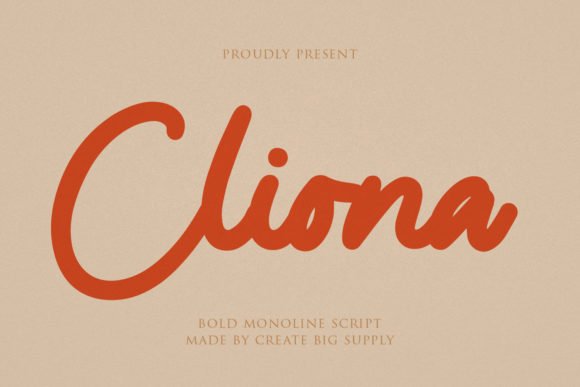
Meet Your New Favorite Script Font: Cliona
Have you ever stared at a blank page, trying to bring a design idea to life, only to be met with a blank stare from your font options? We’ve all been there. The struggle is real, but what if I told you there’s a script font that’s about to change the game for you?
Enter Cliona Script Font, a bold and beautiful font designed to elevate your designs and make a statement. Perfect for branding designs, logos, product packaging, marketing materials, advertising, business cards, and more, Cliona Script Font is the ultimate addition to any designer’s toolkit.
With its versatility and stylish flair, Cliona Script Font is a valuable asset for designers looking to add a touch of sophistication and creativity to their work. Whether you’re a seasoned pro or just starting out, this font is sure to inspire your next design project.
Cliona Script Font Key Features
- Font Style: Script Font, perfect for creating elegant and sophisticated designs.
- Unique Characteristics: Features a flowing, cursive design with a touch of elegance, making it perfect for wedding invitations, branding, and other creative projects.
- Font Weight: Available in Light, Regular, and Bold weights, allowing for versatility in design and emphasis.
Review: Cliona Script Font
Overall, I found Cliona Script Font to be a visually appealing addition to any design project. It works well in ✨ creative and whimsical contexts, particularly for branding, wedding invitations, and social media graphics. The flowing script style is perfect for adding a touch of elegance and sophistication.
- Works well for creative and whimsical projects
- Perfect for branding, wedding invitations, and social media graphics
- Flows well in both uppercase and lowercase letters
- Has a wide range of ligatures, giving it a natural look
However, there are some limitations to consider. The font may not be suitable for ✨ complex or technical content, as it can be difficult to read in smaller font sizes. Additionally, some users may find the font to be a bit too ornate or over-the-top, particularly in ✨ corporate or formal contexts.
- May not be suitable for complex or technical content
- Can be difficult to read in smaller font sizes
- May be too ornate or over-the-top for formal contexts
Overall, I would recommend Cliona Script Font to designers who are looking for a unique and eye-catching script font for their creative projects. However, it’s essential to consider the context and audience before using this font.
Cliona Script Font is ideal for creating elegant and sophisticated designs in Canva, such as invitations, quotes, and social media graphics.
Cliona Script Font is perfect for creating intricate and artistic designs in Photoshop or Illustrator, such as typography-based art and hand-lettering.
Cliona Script Font is great for adding a touch of elegance to presentations and documents in PowerPoint or Word, such as title slides and headings.
Cliona Script Font is ideal for:
- Elegant invitations and event materials
- Sophisticated typography-based art
- Hand-lettering and calligraphy
- Adding a touch of elegance to presentations and documents
Alternatives to Cliona Script Font for Designers
Carolyna Pro is a beautiful, elegant script font that is perfect for creating a luxurious and sophisticated look. It is ideal for use in high-end branding, invitations, and wedding stationery. Compared to Cliona Script Font, Carolyna Pro has a more refined and polished feel, making it suitable for a wider range of design projects.
Pacifico is a modern script font that is characterized by its relaxed and casual vibe. It is perfect for use in designs that require a friendly and approachable tone, such as social media graphics, blog posts, and product packaging. Compared to Cliona Script Font, Pacifico is more laid-back and easy-going, making it a great choice for designs that need to convey a sense of approachability.